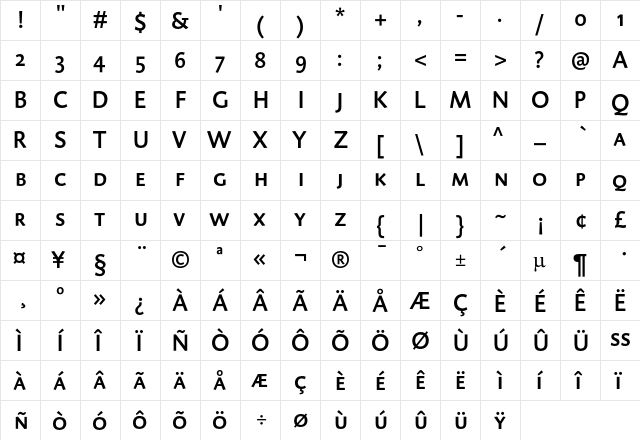
DTL Caspari T Caps Medium
Design Context for DTL Caspari Typeface
DTL Caspari takes a measured approach to typography — its balanced proportions and neutral character make it a reliable workhorse for both digital and print work.